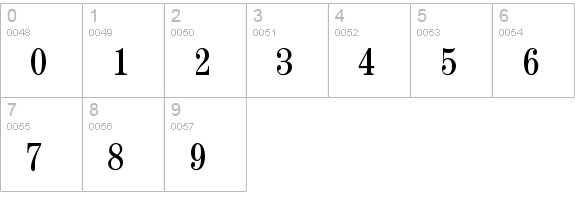
CenturyEF-BookCondensed is a sleek and modern font that brings a touch of sophistication to any design project. With its clean lines and elegant appearance, this font is perfect for creating professional-looking documents, logos, and websites. The condensed style gives it a unique and contemporary look that will make your text stand out. And the best part is, it's completely free to download at FontsMarket.com! So you can add this stylish font to your collection without breaking the bank. Don't miss out on the opportunity to elevate your designs with CenturyEF-BookCondensed today!